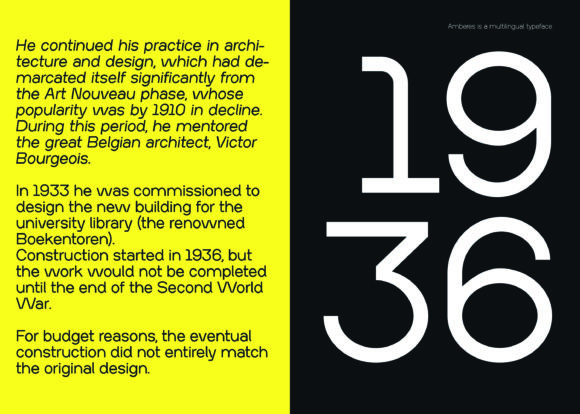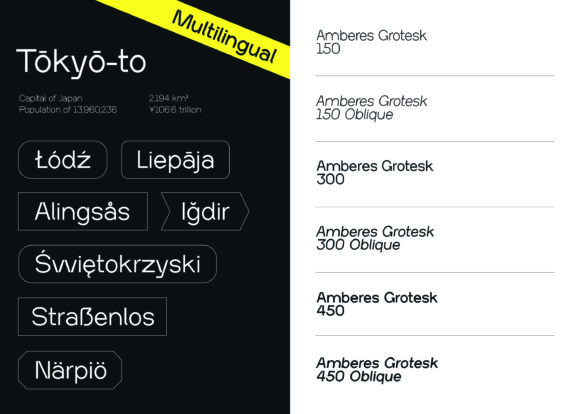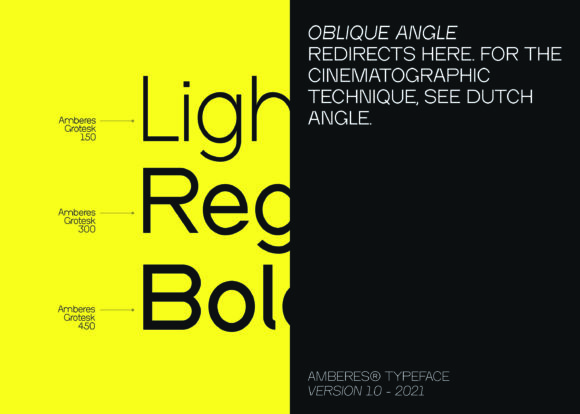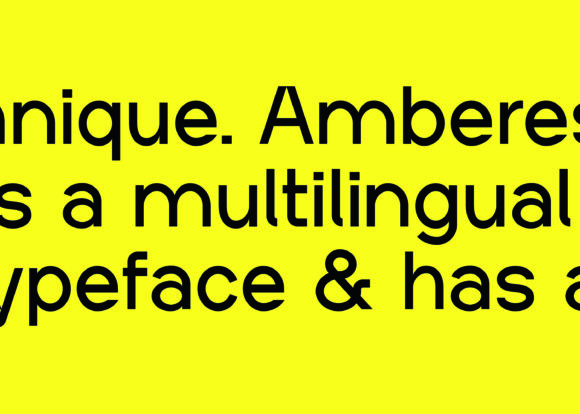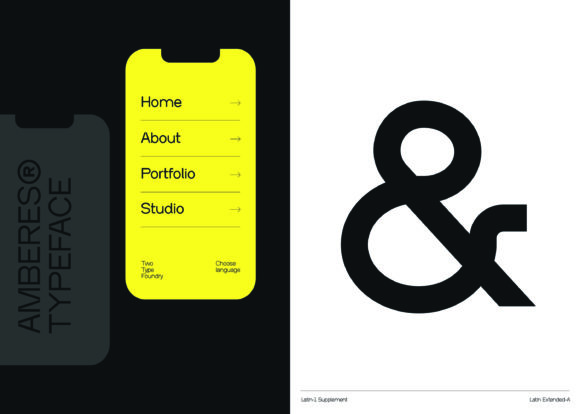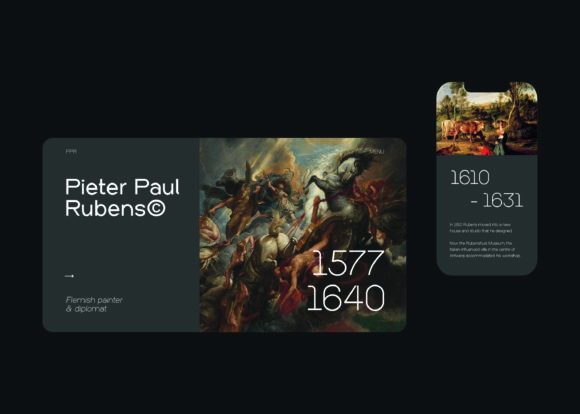
Introducing Amberes Font: The Ultimate Sans Serif for Creative Projects
Are you on the hunt for a font that can elevate your creative projects to the next level? Look no further than Amberes Font, a stunning minimal and neat sans serif font that’s perfect for a wide range of applications. With its clean lines, elegant curves, and versatile design, Amberes is the ideal choice for designers, crafters, and anyone looking to add a touch of sophistication to their work.
What Makes Amberes Font So Special?
Amberes Font is a masterclass in simplicity and elegance. Its sans serif design makes it incredibly versatile, allowing it to seamlessly integrate into a vast array of projects, from modern digital platforms to traditional print materials. Whether you’re working on a logo, brochure, website, or social media graphics, Amberes Font is the perfect choice.
One of the standout features of Amberes Font is its minimalistic approach. With no unnecessary flourishes or embellishments, this font is all about clean lines, simple shapes, and a clear, legible design. This makes it perfect for projects where you want to convey a sense of modernity, sophistication, and professionalism.
The Benefits of Using Amberes Font
So why should you choose Amberes Font for your next project? Here are just a few of the benefits you can expect:
- Versatility: Amberes Font is incredibly versatile, making it suitable for a wide range of projects, from digital platforms to print materials.
- Legibility: The clean and simple design of Amberes Font ensures that your text is always clear and easy to read, even at small sizes.
- Modernity: Amberes Font has a distinctly modern feel, making it perfect for projects where you want to convey a sense of innovation and forward-thinking.
- Elegance: Despite its minimalist approach, Amberes Font has an undeniable air of elegance, making it perfect for projects where you want to convey a sense of sophistication and refinement.
How to Use Amberes Font in Your Projects
Using Amberes Font in your projects is incredibly easy. Here are a few tips to get you started:
- Pair it with bold colors: Amberes Font looks amazing when paired with bold, bright colors. Try using it with a bold color scheme to create a striking visual effect.
- Experiment with different sizes: Amberes Font is clear and legible at a wide range of sizes, making it perfect for use in both headlines and body text.
- Use it for branding: Amberes Font is an excellent choice for branding projects, such as logos and business cards. Its clean and simple design makes it easy to recognize and remember.
Who Can Benefit from Amberes Font?
Amberes Font is perfect for a wide range of designers, crafters, and creatives, including:
- Graphic designers: Amberes Font is an excellent choice for graphic designers looking for a versatile and elegant sans serif font.
- Web designers: Amberes Font is perfect for web designers looking for a font that will work well on a wide range of digital platforms.
- Crafters: Amberes Font is a great choice for crafters looking for a font that will add a touch of sophistication to their handmade projects.
- Marketers: Amberes Font is an excellent choice for marketers looking for a font that will help their brand stand out.
| Font Name | Amberes Font |
| Author | Two Type Foundry |
In conclusion, Amberes Font is a stunning minimal and neat sans serif font that’s perfect for a wide range of creative projects. With its clean lines, elegant curves, and versatile design, Amberes is the ideal choice for designers, crafters, and anyone looking to add a touch of sophistication to their work. Whether you’re working on a logo, brochure, website, or social media graphics, Amberes Font is the perfect choice. So why wait? Download Amberes Font today and see how it can elevate your creative projects to the next level!